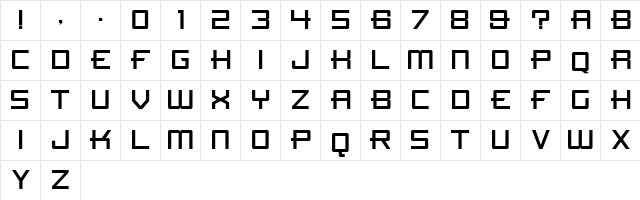
FlywheelSquare Medium Font Preview
FlywheelSquare Medium
FlywheelSquare Medium Font Details
Design Context for FlywheelSquare Typeface
FlywheelSquare is a composed and adaptable typeface that performs quietly and consistently across a wide range of design contexts.